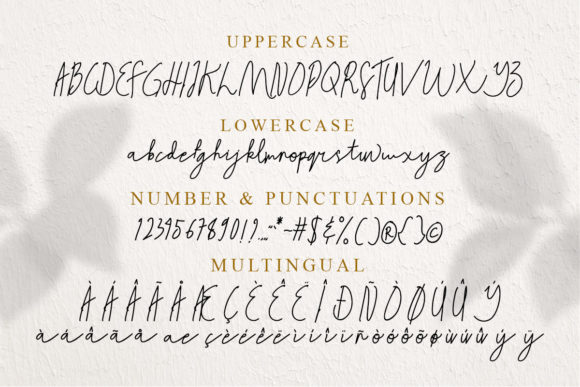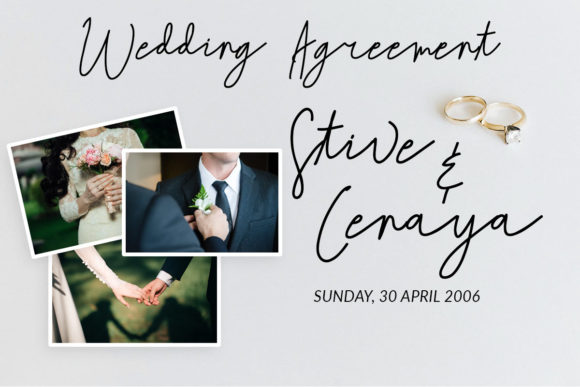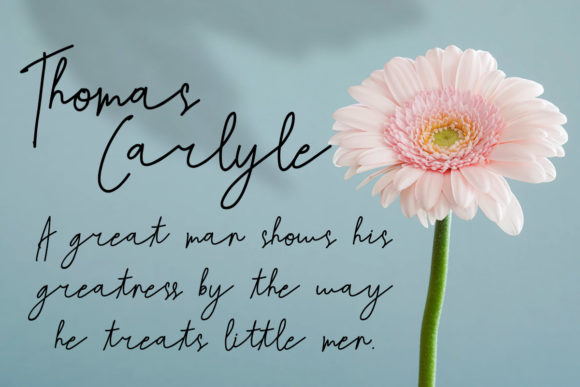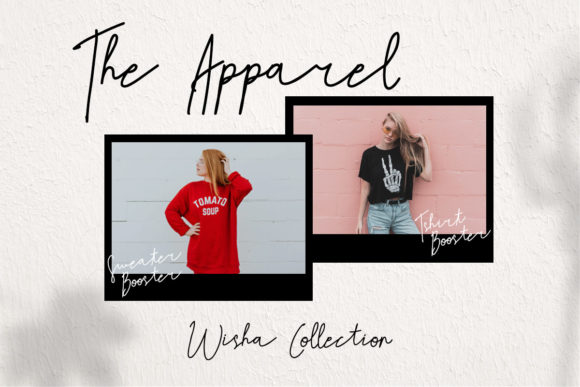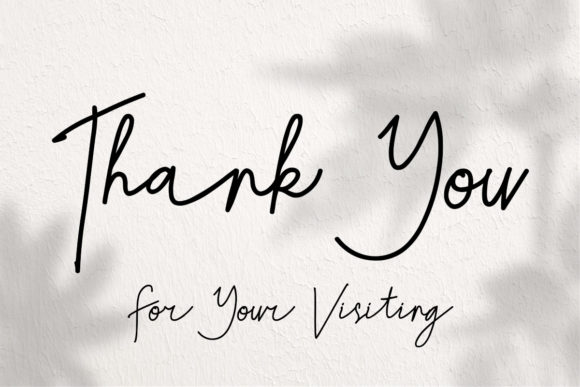
Xavier Eskimo Font
About Xavier Eskimo Font
Xavier Eskimo is a stylish and delicate font. It has a clean, thin and smooth vibe and it will be a hit for any design that you want to add it to.